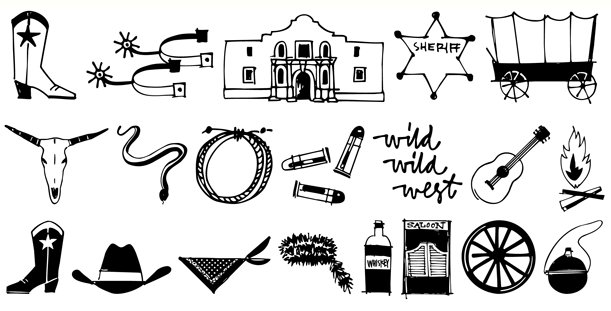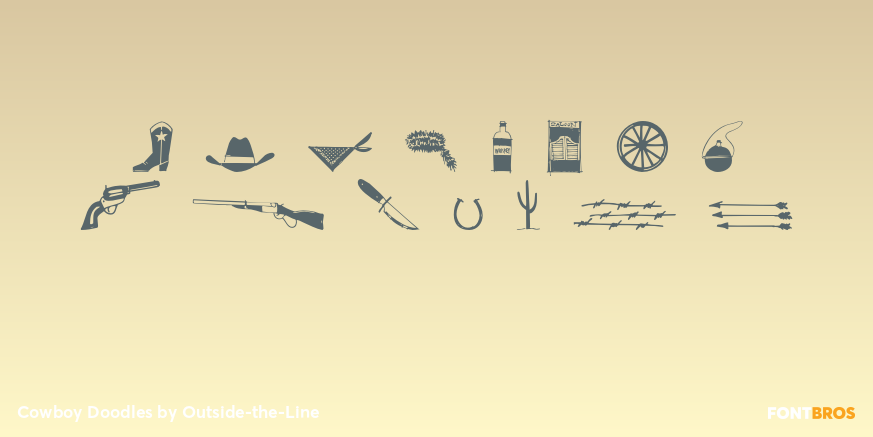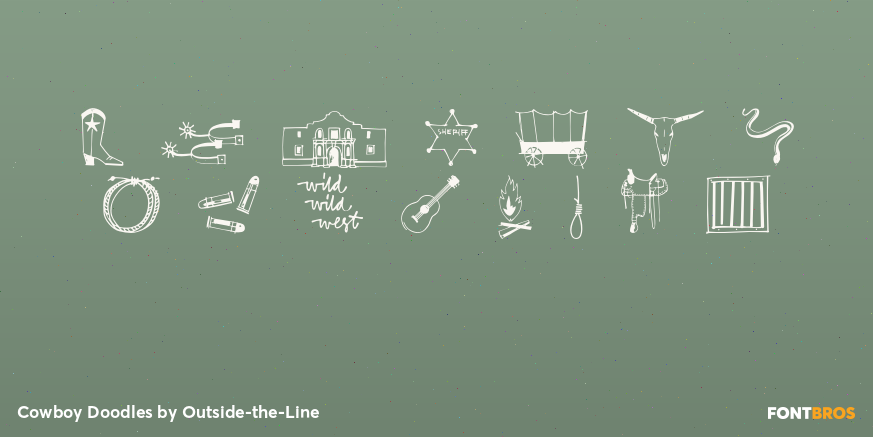
Cowboy Doodles
Font Family by Outside-the-Line
A childhood of Westerns, a cap gun, chaps, spurs, cowboy hat and boots plus a trip to Texas was the inspiration for Cowboy Doodles. If you need a doodle font for your next roundup, rodeo or cattle drive themed invitation check out Cowboy Doodles. 29 cowboy themed illustrations plus wild, wild west lettering.